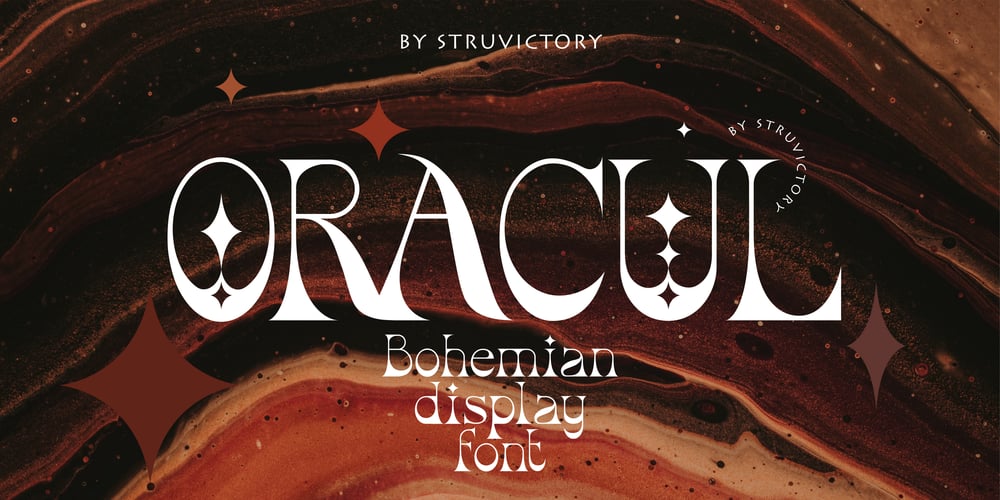
Oracul Decorative Font Family was designed by Viktoryia Strukouskaya, Viktor Strukouski and published by Struvictory.art. Oracul Decorative contains 1 styles and family package options. Oracul is a modern display font with Bohemian motives. The font is created in a psychedelic retro style and decorated with the stars. Oracul includes stylistic alternates and ligatures. The font is suitable for the design on the theme of astrology, mysticism, spirituality, witchcraft, magic, esotericism, fortune-telling, tarot.Oracul has extensive language support, it includes English, French, German, Italian, Spanish, Portuguese, Danish, Norwegian, Swedish, Finnish, Estonian, Turkish. Oracul font includes stylistic alternates for symbols: E, H, I, J, L, O, Q, T, U, Y. There are also ligatures: MA, RA, KA, XA, AA, AM, RM, OO.